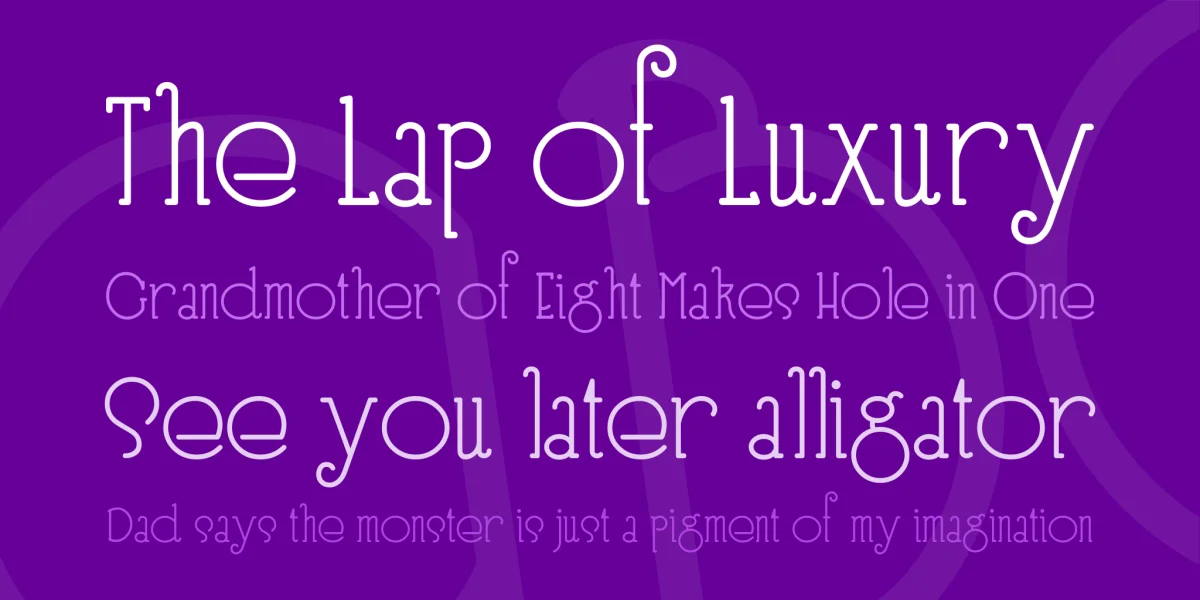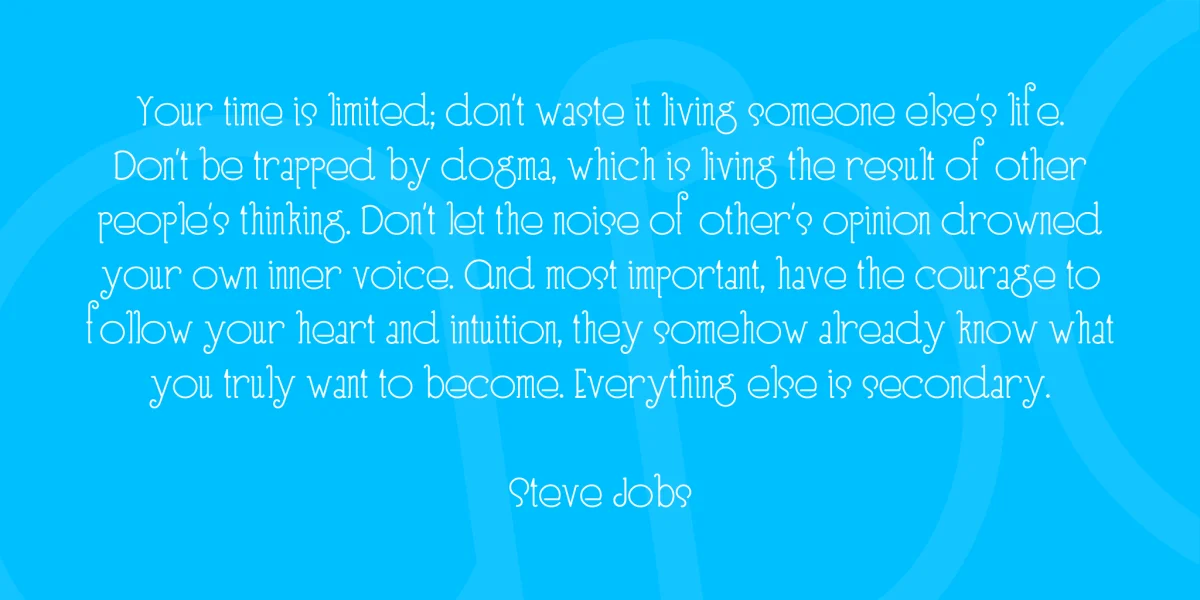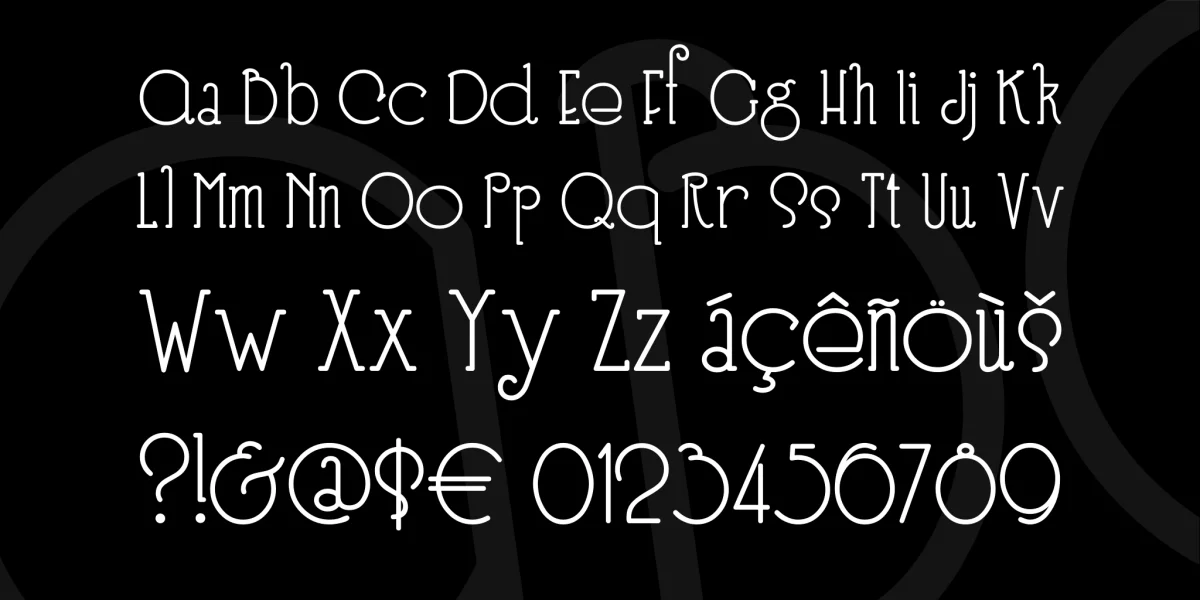
Another font from the booklet (author unidentified) that introduced the world to the Speed-Ball Pen (sic)in 1915. A quirky typeface, suitable for any toony occasion.